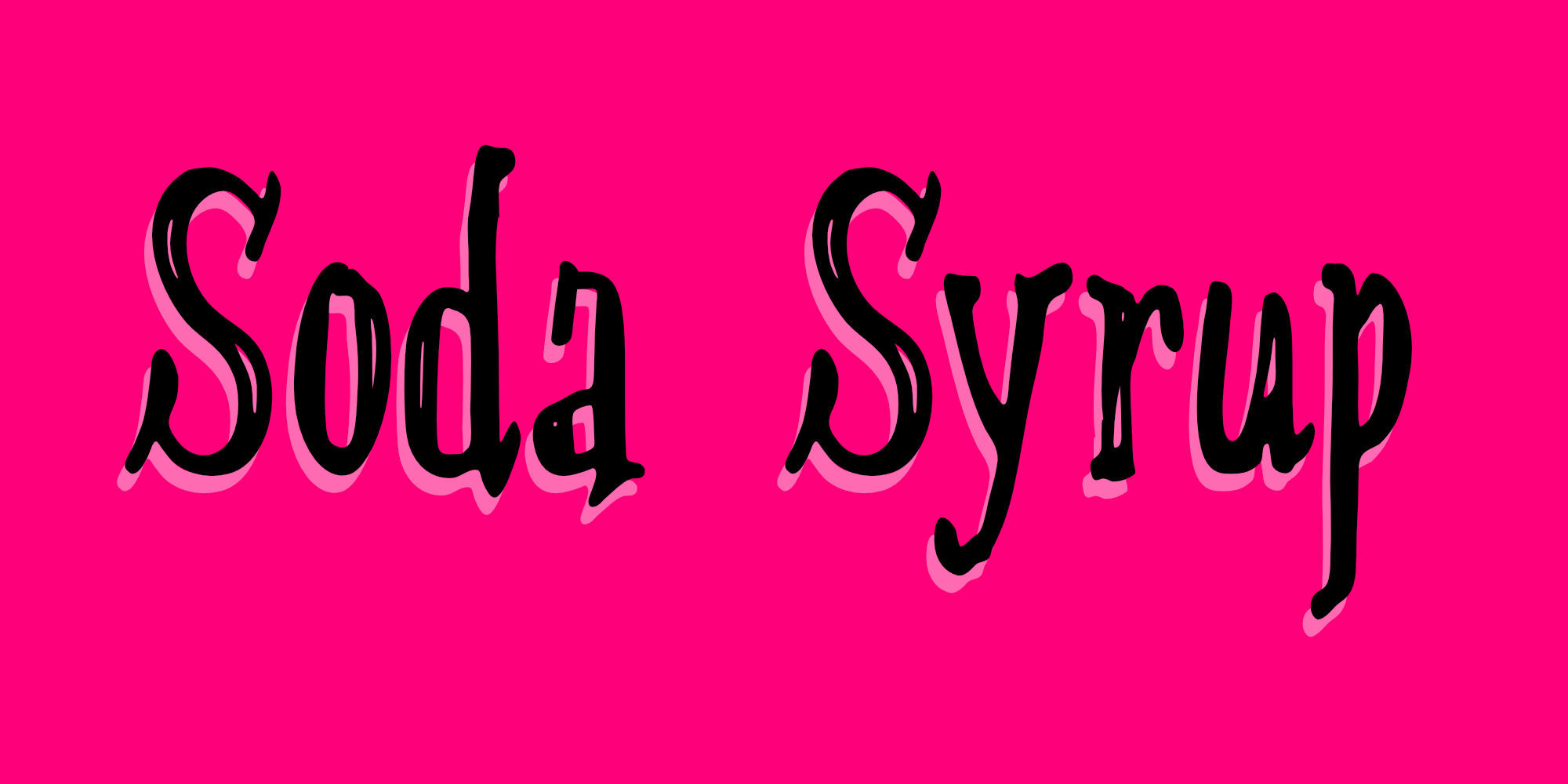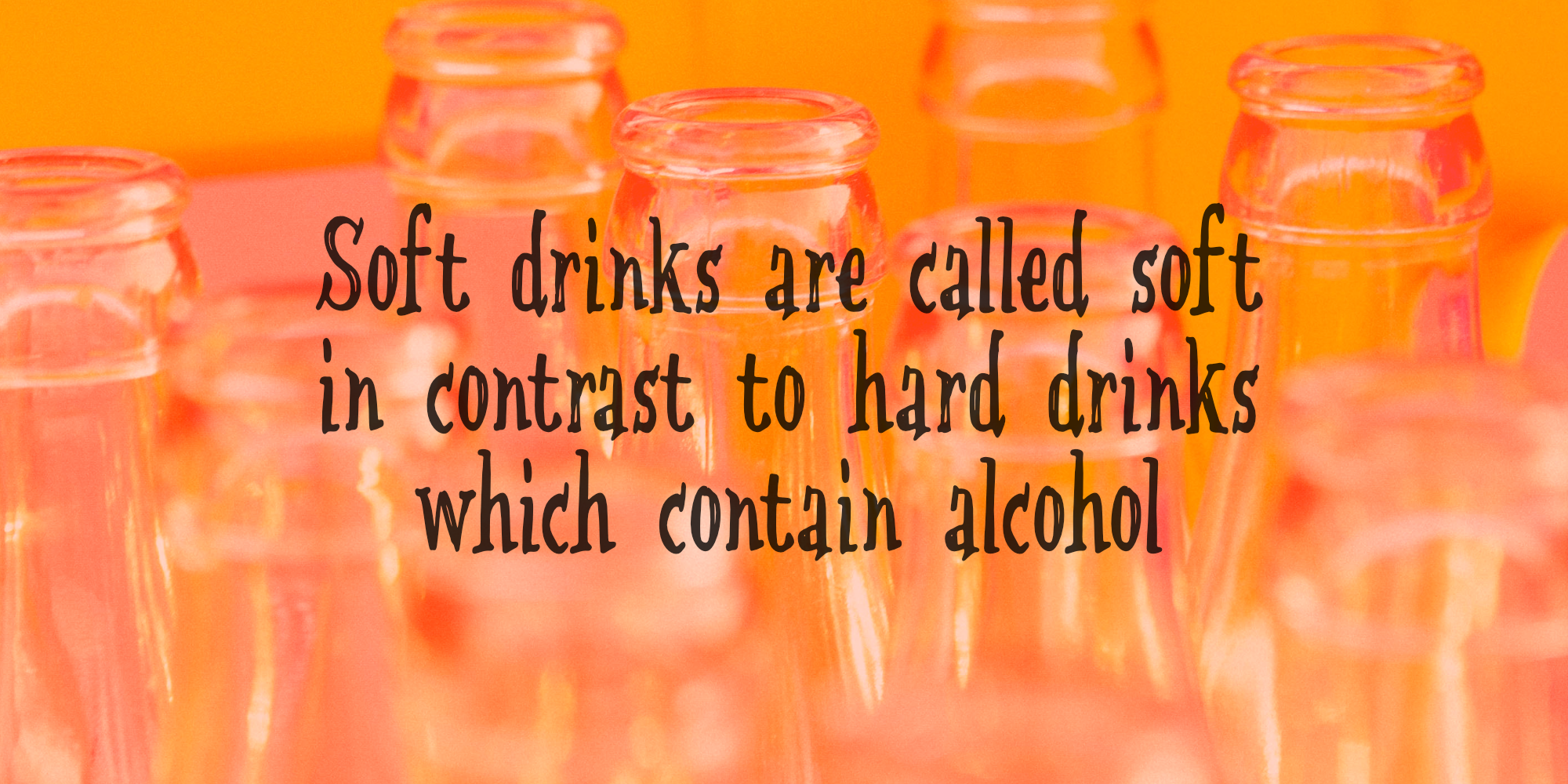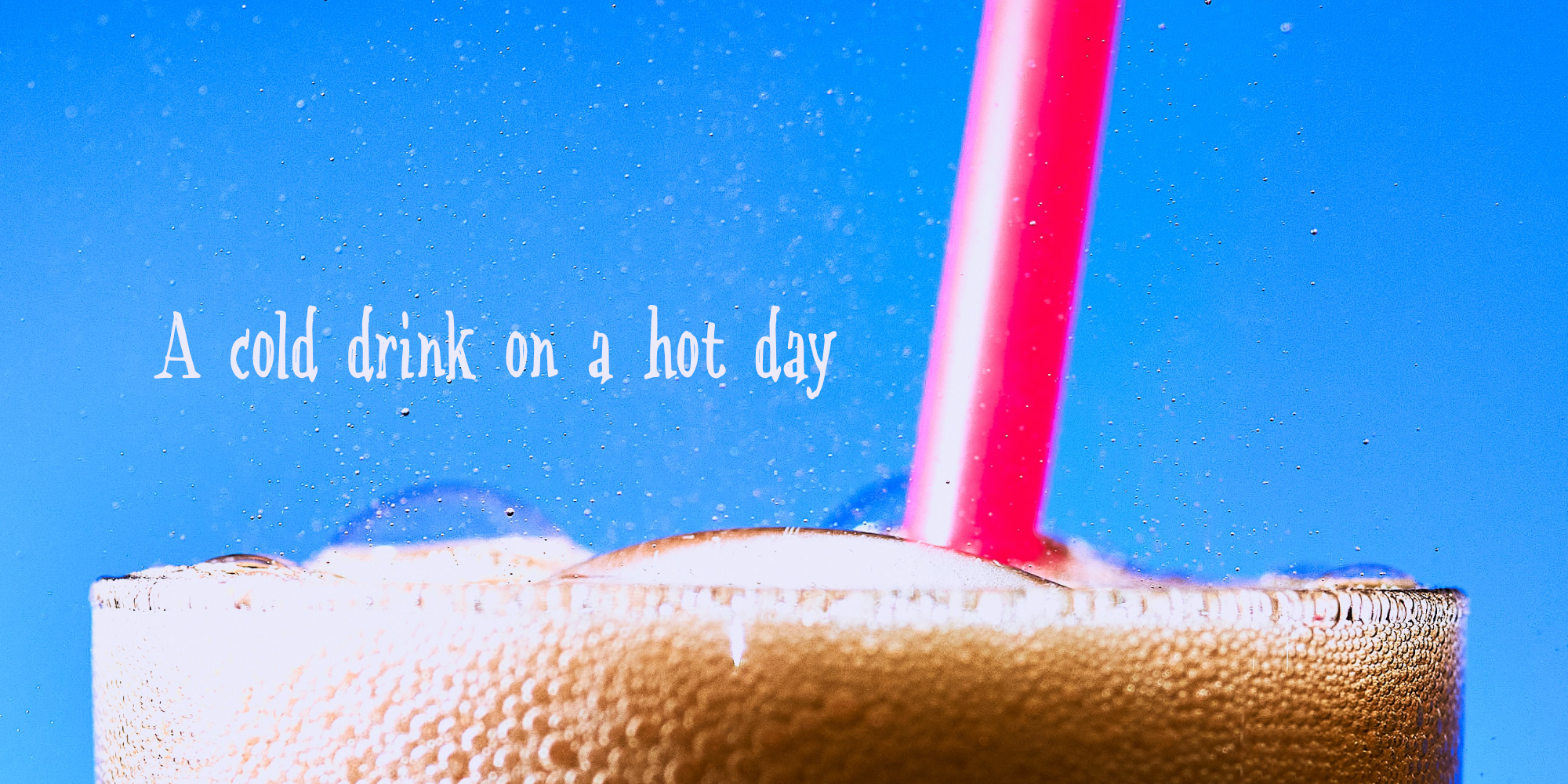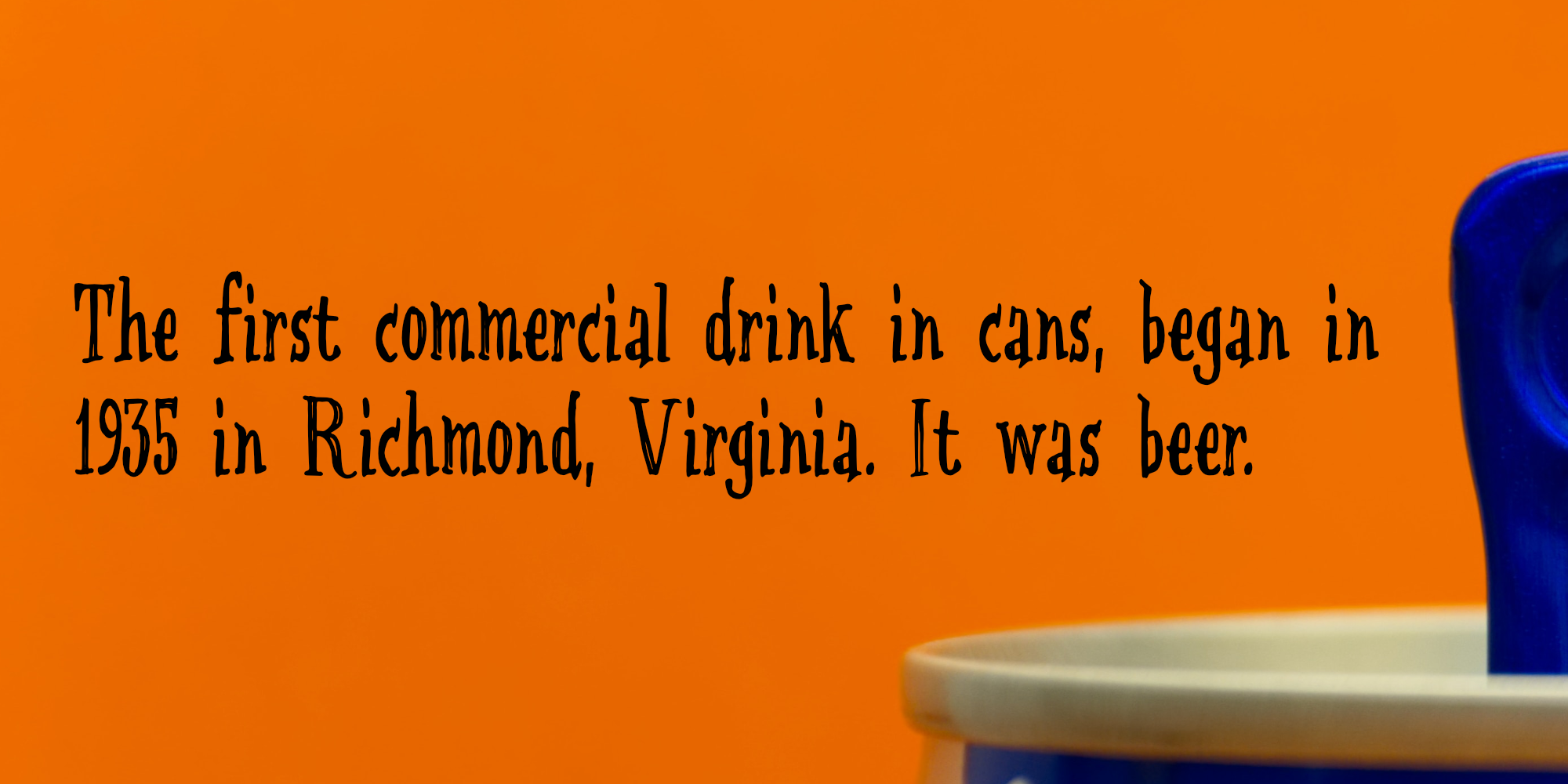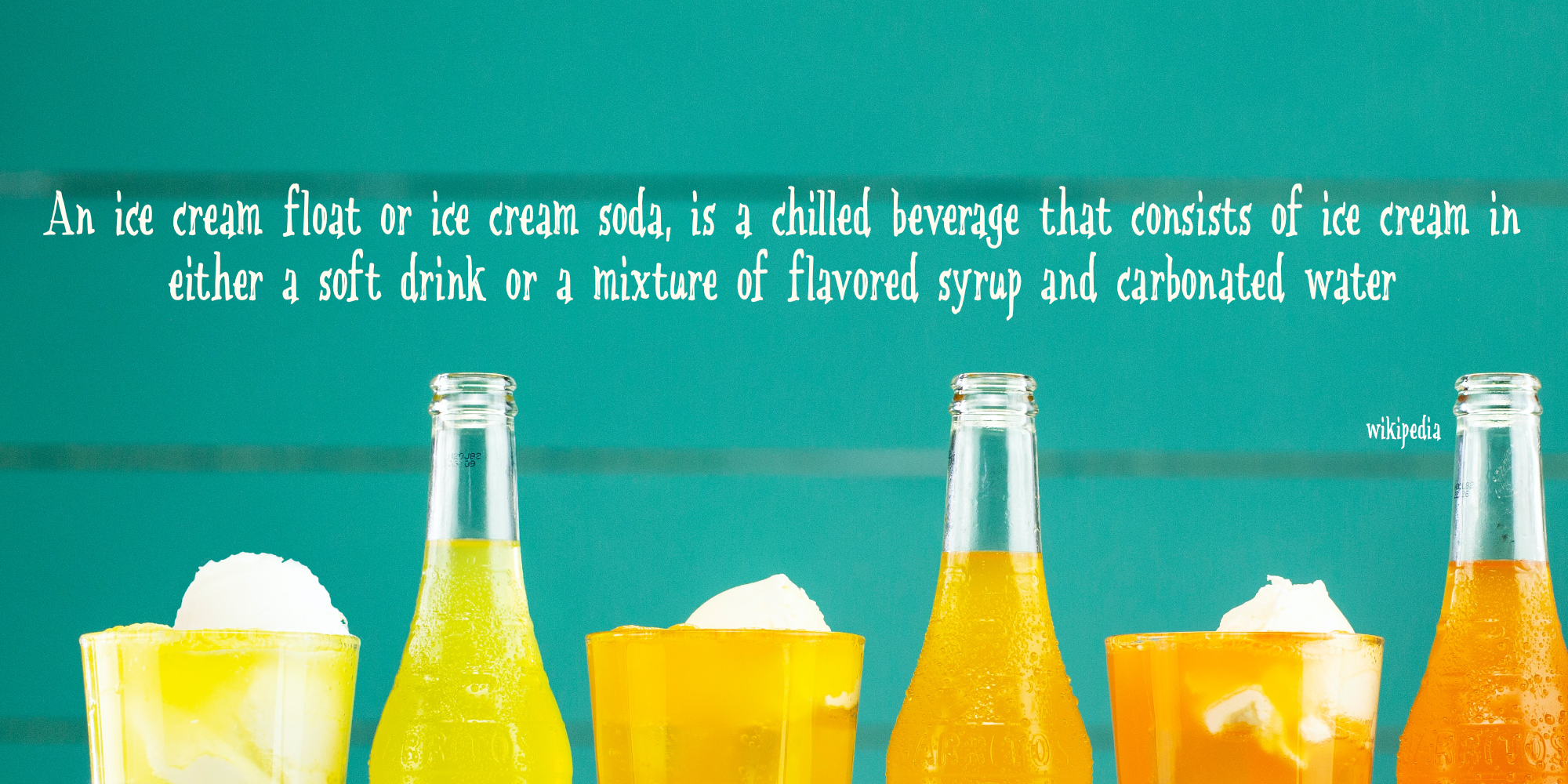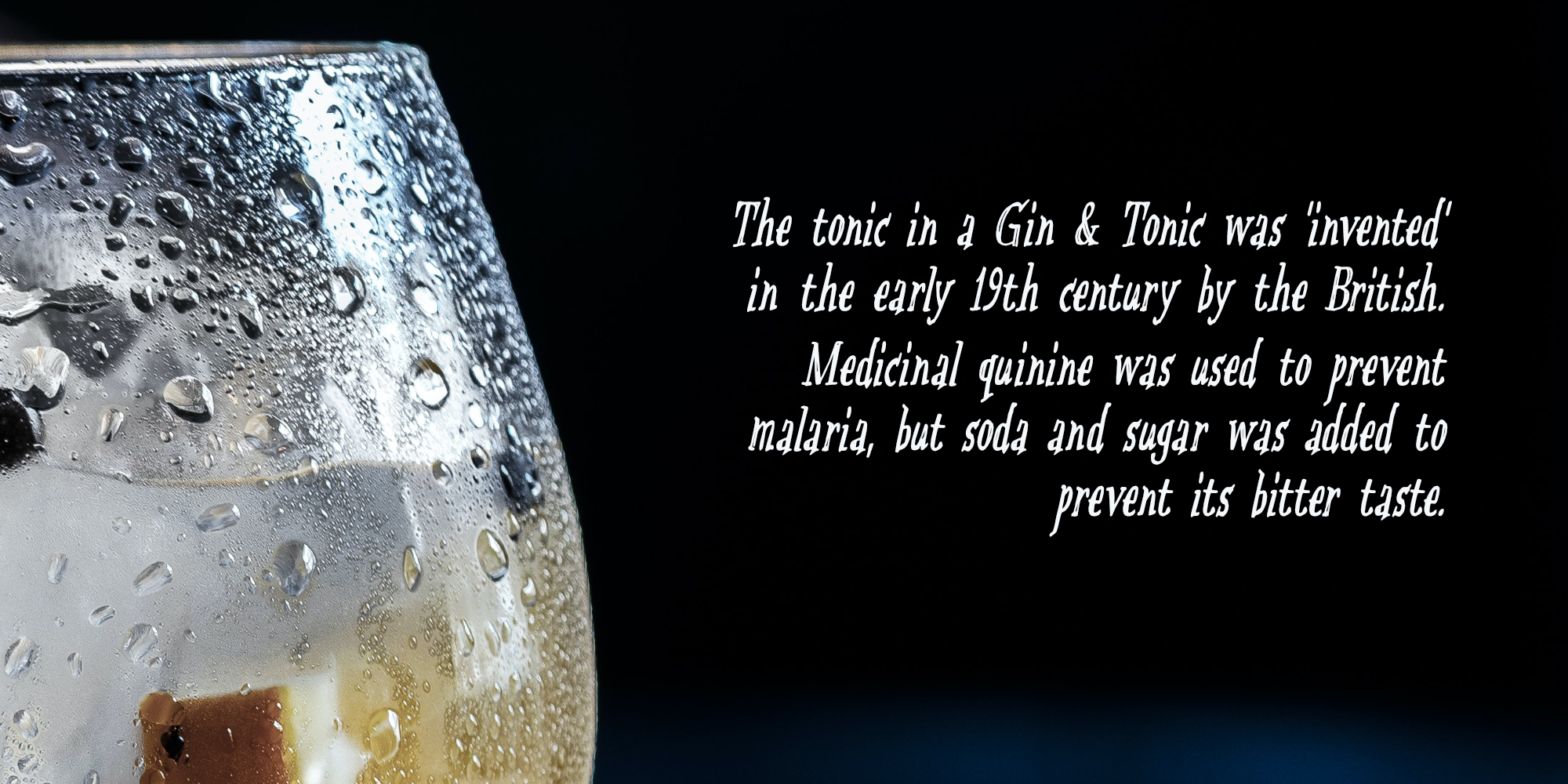
Soda Syrup (2 fonts)
Soda Syrup was made with a marker pen and a lot of paper! It comes with a frizzy, sticky goodness to give your designs that extra kick.